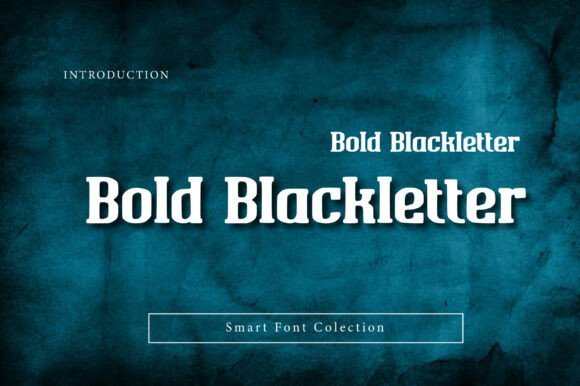
The Power of Bold Typography: Unlocking the Era of Medieval Chic
You’re sipping on a craft beer, surrounded by vintage posters and dimly lit candles. As you scan the label, the bold typography jumps out at you – a striking, yet elegant font that screams heritage and rebellion. That’s the magic of the Bold Blackletter Font, a reimagined medieval Gothic calligraphy that’s been optimized for the modern era.
For designers, the Bold Blackletter Font is a game-changer. It adds a touch of historical gravitas to any project, while its dense vertical strokes and sharp terminals radiate authority. Whether you’re crafting a luxury packaging design or creating a high-end apparel label, this font is an essential tool in your arsenal. Its versatility makes it perfect for pairing with clean, geometric sans-serif fonts, creating a sophisticated “old-meets-new” visual hierarchy.
Bold Blackletter Font Features
- Font Style: A bold, condensed blackletter font with a strong, dramatic feel, often used for titles and headings.
- Unique Characteristics: Distinctive letterforms with thick, heavy strokes, and ornate flourishes, giving the font a sense of elegance and sophistication.
- Font Weight: Available in bold weight, making it ideal for creating emphasis and drawing attention to important text.
Designer Review: Bold Blackletter Font
I recently had the chance to work with the Bold Blackletter Font, and I’m excited to share my honest review with you. Overall, I was impressed with this font’s unique style and versatility.
What works well: ✨ The font’s bold, striking design makes it perfect for titles, headings, and any situation where you want to make a statement. Its clean lines and classic blackletter style give it a timeless feel that’s sure to add character to your designs.
- ✨ Suitable for a wide range of design projects, from print to digital media
- ✨ The font’s bold weight is perfect for creating visually appealing headings
- ✨ Easy to read, even at smaller font sizes
However, there are a few limitations to consider: ⚠️ The font’s condensed width can make it challenging to use in situations where you need to fit a lot of text in a small space. Additionally, the font’s design may not be suitable for projects that require a more subtle or minimalist aesthetic.
- ⚠️ May be difficult to use in situations with limited horizontal space
- ⚠️ May not be the best choice for projects with a minimalist or subtle design style
Overall, I was impressed with the Bold Blackletter Font’s unique style and versatility. While it may have some limitations, I believe it’s a great choice for designers looking to add a bold, striking touch to their designs.
Use Bold Blackletter font for creating dramatic and eye-catching headlines, titles, and other text elements.
Combine it with other fonts to create a unique and visually appealing design.
Experiment with different font sizes, colors, and styles to achieve the desired effect.
Bold Blackletter font is commonly used in:
Movie and TV title sequences
Book covers and title pages
Advertising and marketing materials
Graphic design and branding
Alternatives to Bold Blackletter Font for Designers
1. Copperplate Gothic Bold
Copperplate Gothic Bold is a classic serif font with a strong, elegant feel. It’s ideal for use in formal or professional contexts, such as corporate identities, invitations, or luxury branding. Compared to Bold Blackletter Font, Copperplate Gothic Bold has a more refined and sophisticated appearance, making it a great choice for designers who want to convey a sense of tradition and high-end quality.
2. Museo Sans Bold
Museo Sans Bold is a modern sans-serif font with a strong, geometric feel. It’s perfect for use in digital applications, such as websites, apps, or social media platforms, where a clear and legible font is essential. Compared to Bold Blackletter Font, Museo Sans Bold has a more contemporary and minimalist appearance, making it a great choice for designers who want to create a clean and modern look.